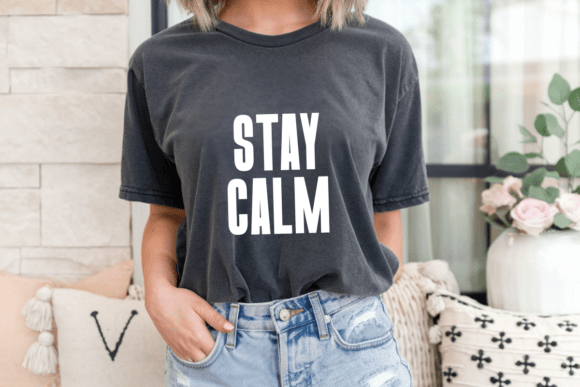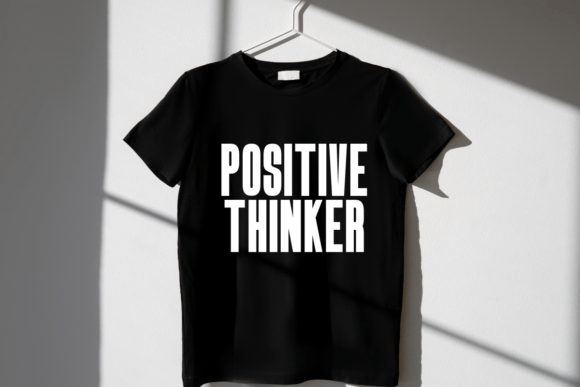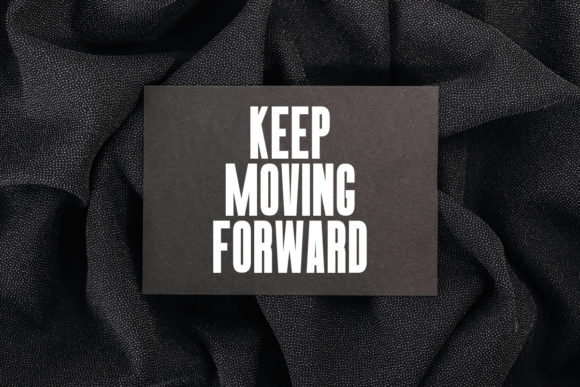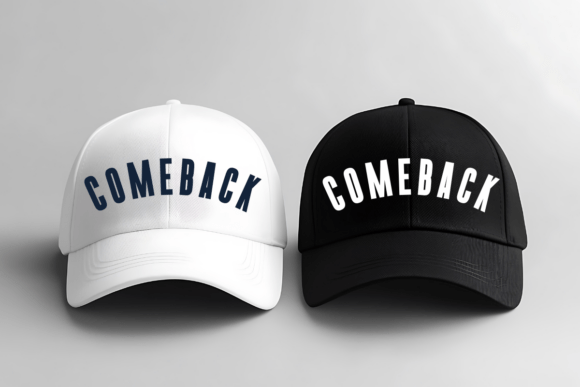
Unleashing the Power of Modern Typography: An In-Depth Look at Creater Font
In the realm of typography, certain fonts stand out for their ability to capture attention and convey a sense of style and sophistication. Creater Font is one such powerhouse of modern typography, designed specifically for those who need to make a statement with a single glance. This ultra-condensed, tall typeface is perfect for high-impact branding where space is limited, but presence is paramount.
The Aesthetic of Creater Font
Creater Font features a clean, sharp architecture that evokes a sense of technological advancement and urban sophistication. Its minimal footprint and sleek lines make it an ideal choice for designs where space is at a premium. The font’s aesthetic fits seamlessly into the worlds of sci-fi cinema, gaming interfaces, and architectural portfolios. When you need a title that looks “built” rather than just typed, Creater Font is your go-to tool.
One of the key strengths of Creater Font is its versatility. It can be paired with a wide-spaced, light-weight sans serif for a professional contrast, or used solo against dark, neon-lit backgrounds to lean into its futuristic DNA. This adaptability makes it perfect for a wide range of design applications, from sleek app interfaces to minimalist magazine covers.
Structural Integrity
Creater Font provides a structural integrity that grounds your composition. Its tall, condensed architecture creates a sense of stability and balance, making it perfect for designs where visual hierarchy is crucial. Whether you’re designing a website, a brochure, or a poster, Creater Font helps you create a clear and compelling visual narrative.
Creater Font is particularly well-suited for designers and crafters who need to create high-impact visuals quickly and easily. Its clean lines and minimal footprint make it easy to use in a variety of design contexts, from digital media to print materials. With Creater Font, you can create professional-looking designs that are sure to capture attention and leave a lasting impression.
Tips for Using Creater Font
Here are a few tips for getting the most out of Creater Font:
- Pair Creater Font with a wide-spaced, light-weight sans serif for a professional contrast.
- Use Creater Font solo against dark, neon-lit backgrounds to lean into its futuristic DNA.
- Use Creater Font to create a clear and compelling visual hierarchy in your design.
In conclusion, Creater Font is a powerful tool for designers and crafters who need to create high-impact visuals quickly and easily. Its ultra-condensed, tall architecture and clean, sharp lines make it perfect for high-impact branding, sci-fi cinema, gaming interfaces, and architectural portfolios. With its versatility, structural integrity, and ease of use, Creater Font is an excellent choice for anyone looking to add a touch of modern sophistication to their designs.